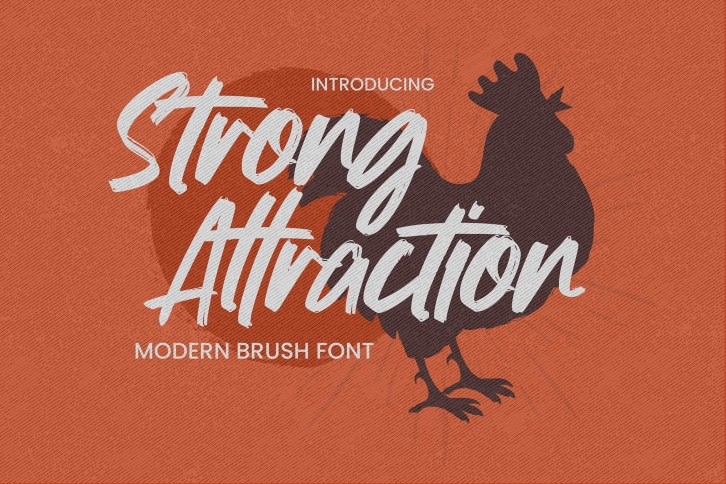
Introducing Strong Attraction is Modern Brush Font.Textured Handbrush Authentic font is a Signature Style and classy style, This font is great for your creative projects such as watermark on photography, and perfect for logos & branding, invitation,advertisements,product designs, stationery, wedding designs,label ,product packaging, special events or anything that need handwritting taste. That is why Strong Attraction has charming, authentic and relaxed characteristic more natural look to your text with a more natural look to your text. You can activate Ligature OpenType panel.